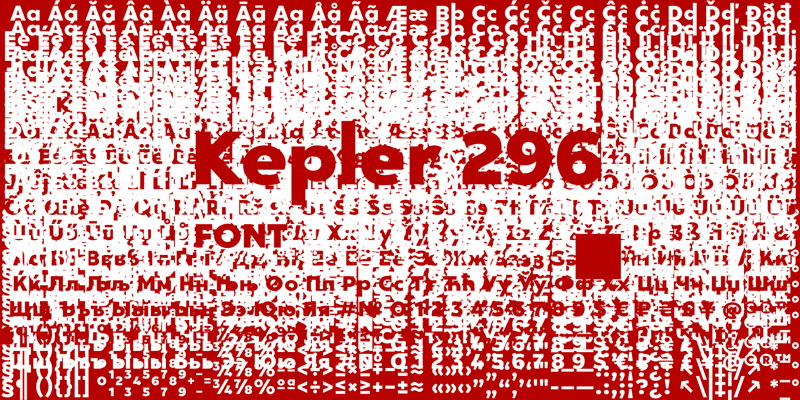
Kepler 296 this is an experimental massive grotesque. Supports extended Latin and Cyrillic. This font is free for personal use only Commercial use: purchase the license fontbundles.net/pj154 crella.net/store/pj154/ Contact me if you have any questions pj154f@gmail.com www.behance.net/Pj154 Copyright � 2019 by Igor Kosinsky. All rights reserved. |